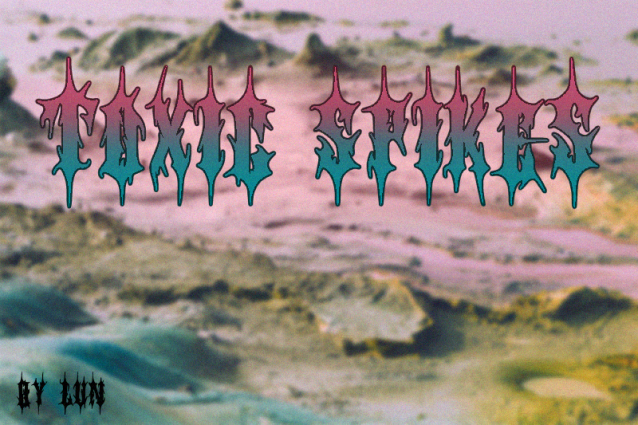
Toxic Spikes Font is a simple and modern display font suitable for quotes, logos, headings, titles, and many more. Use it on any of your creative projects, and your designs will become outstanding!